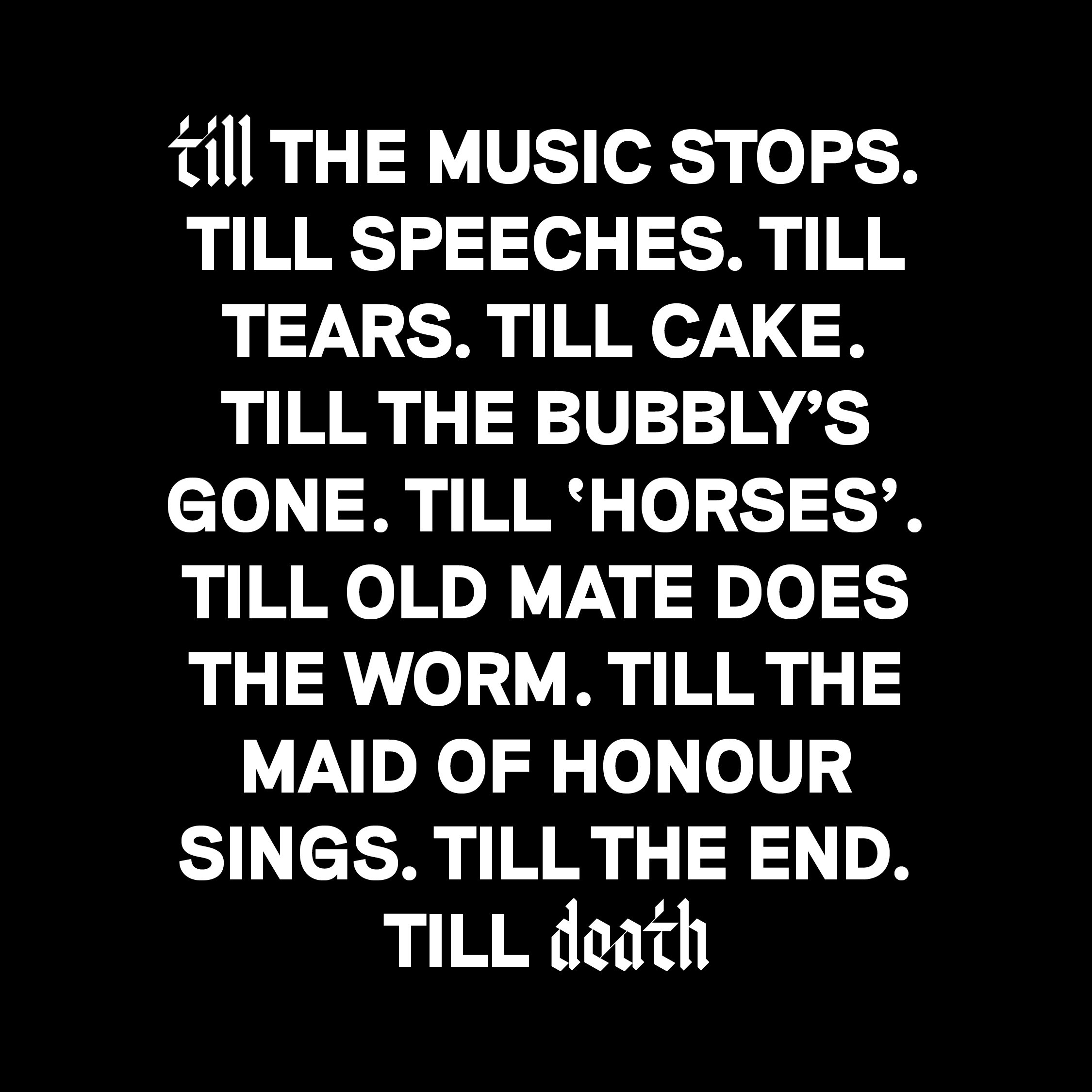
Till Death
Marking the transformation from young punk filmmaker to industry leader.
Till Death
Identity design, custom wordmark and copywriting.
TillDeath is a boutique production company specialising in wedding films, portraits and documentary content. In 2016 the brand began as a rebellious teenager – disruptive, unconventional and hungry to prove themselves. They believed the style of wedding videos had become stale and was screaming to be changed. TillDeath didn’t care about fancy cameras or effects, they focused on real people, real stories and getting amongst it. They were different, passionate and developed a reputation for producing amazing films. Today, there are so many filmmakers making incredible work, creating new niches and styles that alternative is no longer alternative – it’s the norm.
From young ‘punk’ brand to industry leader, TillDeath needed an identity that stayed true to their values and style, while communicating their maturity and level of craft. The brand centres around storytelling, beginning with the logo, a bespoke typeface with fine ligatures that symbolise love and human connection. The name breaks apart to allow a story to be told within, enriching its meaning and allowing for fun, creative and beautiful stories to be told. The exhibition of their films brings the party, utilising motion and energy to create an identity that is more sophisticated, edgy as ever and fucking fun.
Creative direction, custom wordmark, copywriting: Joseph Dennis
Type set in Black Mamba by Swiss Typefaces, Riposte by Good Type Foundry and Messer by Inga Plönnigs.